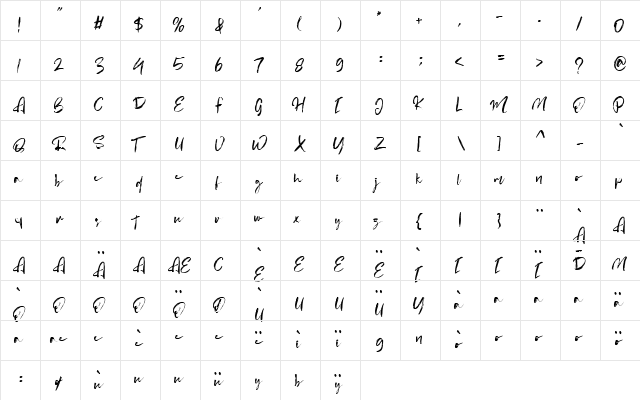
Aliters Regular
| Foundry | Vultype Co |
| Designer | Vultype Co |
Design Context for Aliters Typeface
Aliters is a composed and adaptable typeface that performs quietly and consistently across a wide range of design contexts.